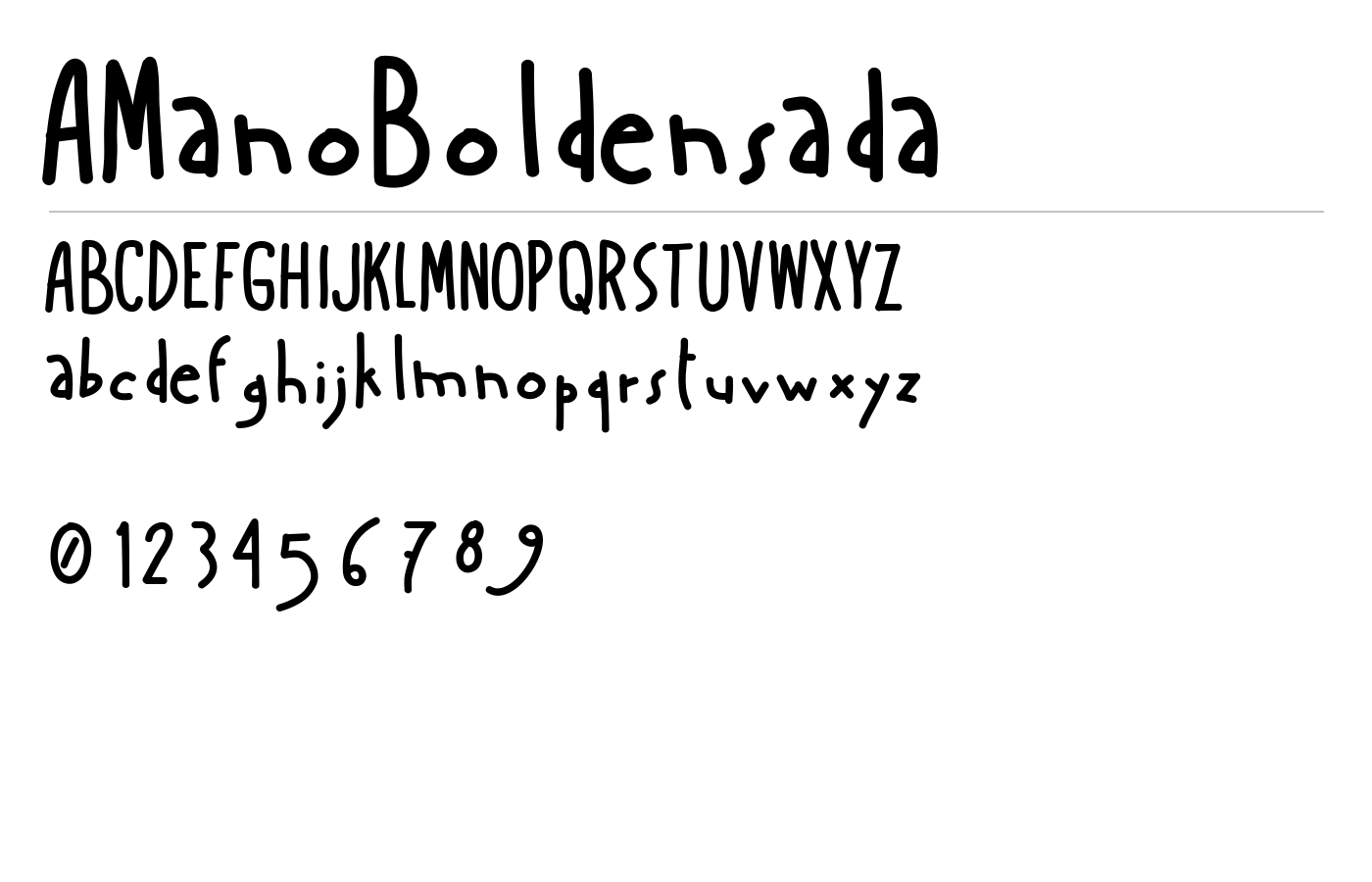
AManoBoldensada is a playful, hand-drawn sans serif font with a casual and friendly feel, featuring irregular strokes and slightly quirky letterforms that add personality and charm. Its bold weight and tall, narrow proportions make it ideal for eye-catching headlines, logos, and creative projects where a warm, approachable touch is desired. This font works well in informal or artistic contexts, lending a unique, handcrafted vibe to designs.
AManoBoldensada Font
About AManoBoldensada Font